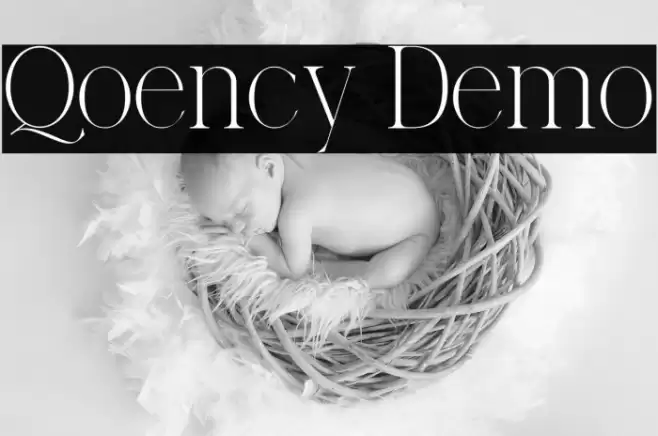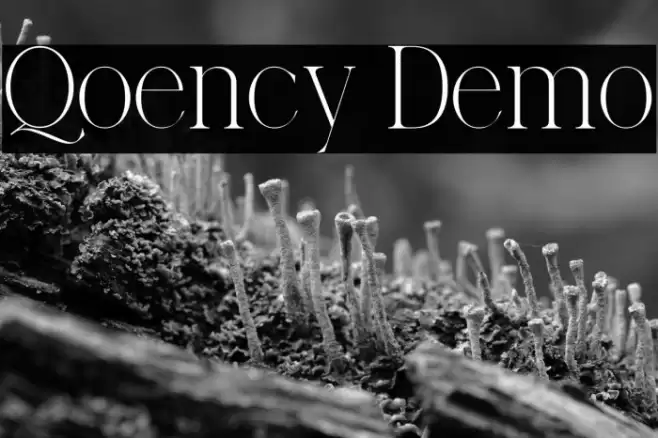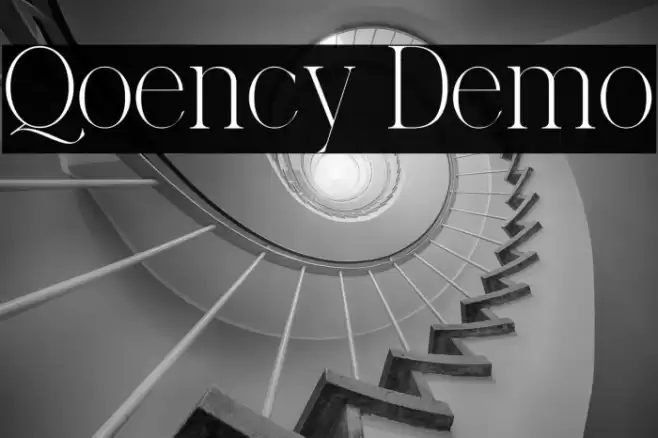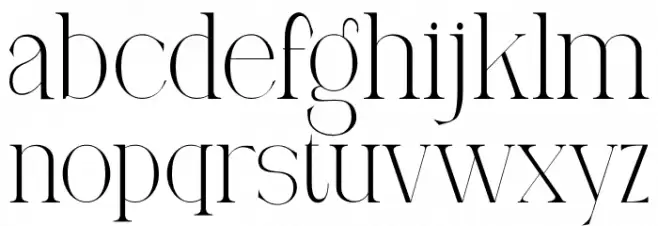
Qoency Demo Font
Qoency Demo Description
This font features a modern and elegant design with thin, elongated strokes that give it a sophisticated appearance. The characters are crafted with a high contrast between thick and thin lines, adding a touch of refinement. The serifs are subtle yet distinct, enhancing the overall classic feel. The lowercase letters exhibit a graceful curvature, while the uppercase letters maintain a stately presence. This font is well-suited for projects that require a touch of elegance and style, such as luxury branding, editorial design, and high-end product packaging. Its clean and polished look makes it versatile for various applications, ensuring readability while maintaining a unique aesthetic.
A modern, elegant font with high contrast and subtle serifs, perfect for luxury branding from Serif fonts.
- Font: Qoency Demo
- Proposed Projects: Luxury branding, editorial design, high-end product packaging, wedding invitations.
- Weight: Light
- Contrast: High
- Use Case: Logos, Headlines, Editorial design